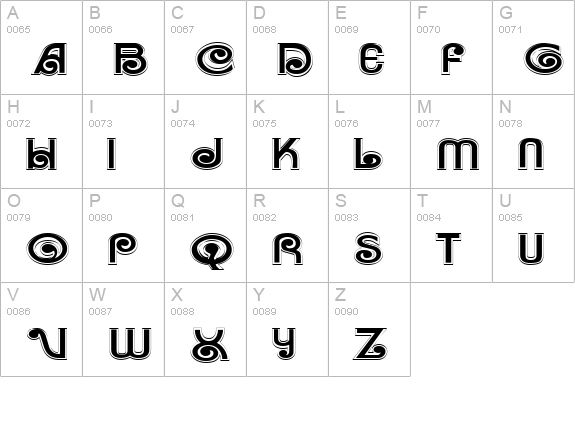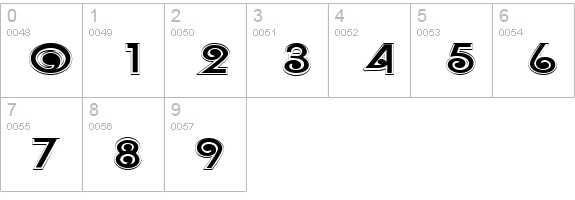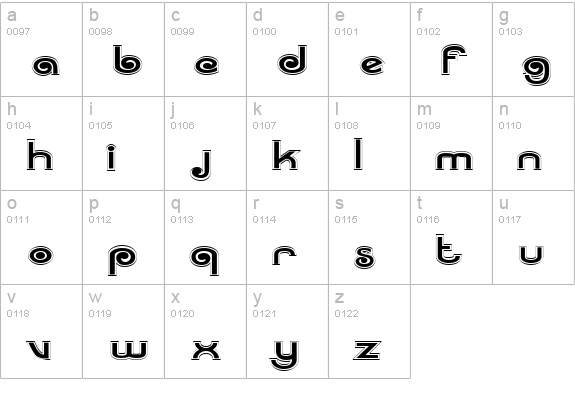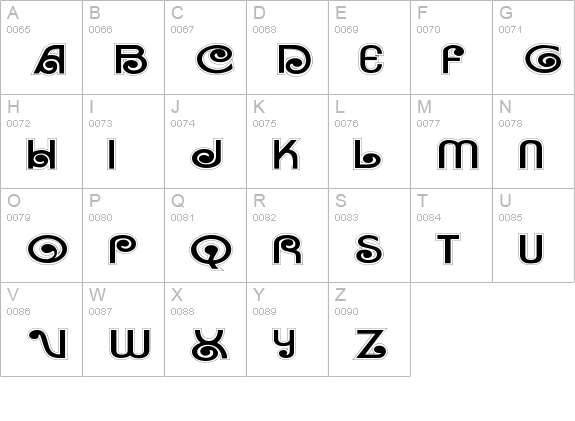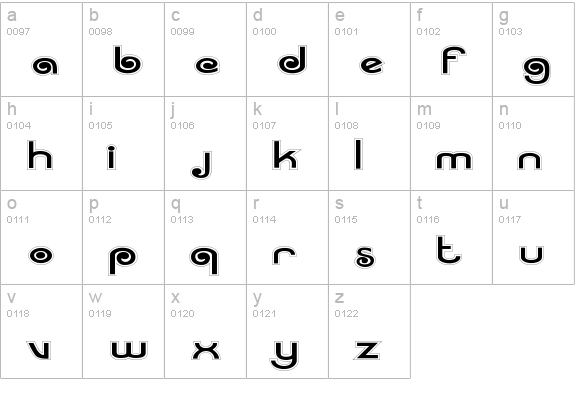
Trenz Font Details
Trenz font is a visually striking typeface that effortlessly combines modern elegance with a touch of whimsy. Its unique design captivates the eye and adds a distinctive flair to any project. With its clean lines and intricate details, Trenz font is perfect for creating eye-catching headlines, logos, or branding materials. What makes Trenz font even more appealing is that it is freely available to download at FontsMarket.com. This means that you can easily access this stunning font and use it in your designs without any cost. Whether you are a professional designer or a creative enthusiast, Trenz font offers you the opportunity to add a touch of sophistication to your work without breaking the bank. The versatility of Trenz font is another reason why it has become a favorite among designers. It seamlessly adapts to various design styles and can be used in a wide range of applications, from elegant wedding invitations to modern website designs. Its flexibility allows you to experiment with different layouts and combinations, ensuring that your creations stand out from the crowd. In addition to its aesthetic appeal, Trenz font also offers excellent legibility, making it a practical choice for both print and digital projects. Its carefully crafted letterforms ensure that your message is clear and easy to read, even at smaller sizes. This means that you can confidently use Trenz font across various mediums, knowing that it will deliver exceptional results every time. Whether you are a seasoned designer looking to add a touch of sophistication to your projects or a beginner exploring the world of typography, Trenz font is a must-have in your font collection. Its stunning design, versatility, and free availability at FontsMarket.com make it an irresistible choice. Download Trenz font today and elevate your designs to new heights of creativity and elegance.